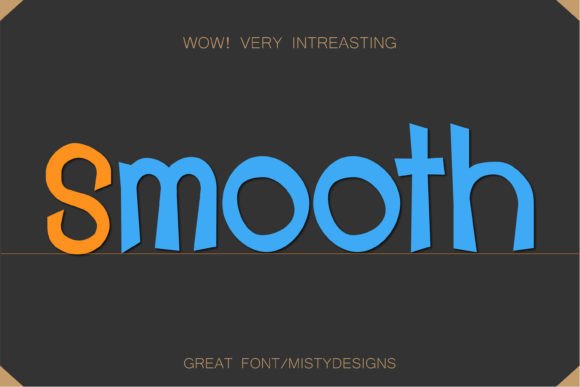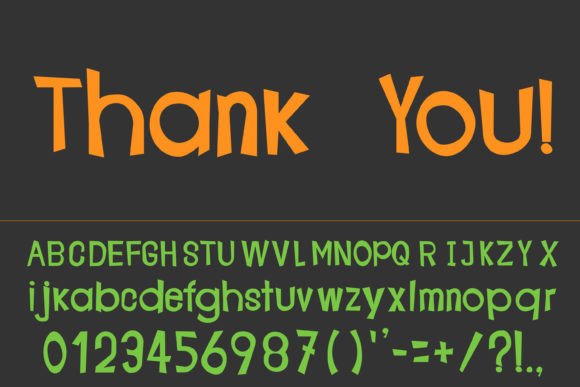
About Smooth Font
Smooth Font Download is a playful handwritten typeface full of quirky charm. Its fun lettering style makes it the perfect choice for designers, crafters, and creatives who want to bring personality and energy to their projects.
Key Features of Smooth Font
Fun and quirky handwritten style
Clear, easy-to-read characters
Uppercase, lowercase, numbers, and punctuation
Perfect Uses for Smooth Font
The versatility of Smooth Font Download makes it suitable for a wide range of creative projects, including:
Crafts & DIY Projects – Labels, tags, and handmade designs
Greeting Cards – Invitations, thank-you notes, and holiday cards
Branding & Logos – Give your brand a fun, approachable identity
Social Media Graphics – Create engaging and playful posts
Posters & Flyers – Add energy to any event or announcement
Why Choose Smooth Font?
Unlike standard typefaces, Smooth Font Download captures the charm of natural handwriting with quirky details. Its casual yet polished look ensures readability while keeping designs warm and creative.
Add a spark of fun and originality to your designs with Smooth Font Download. Whether you’re crafting a card, designing a logo, or working on a digital project, this font makes your work stand out with charm and playfulness.